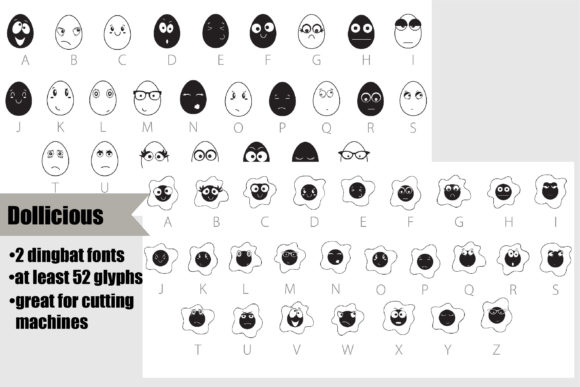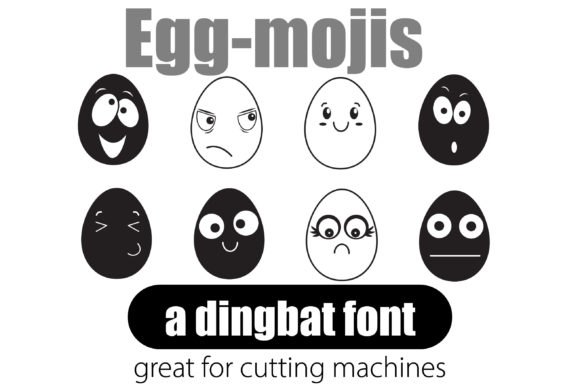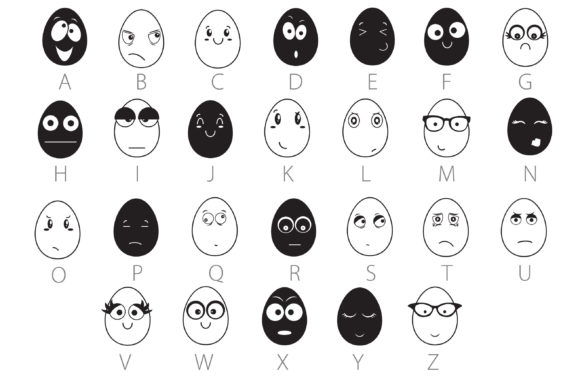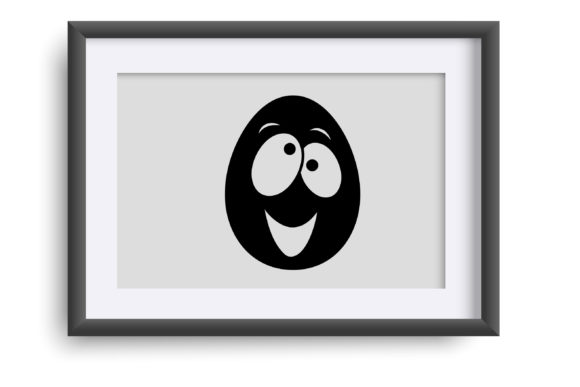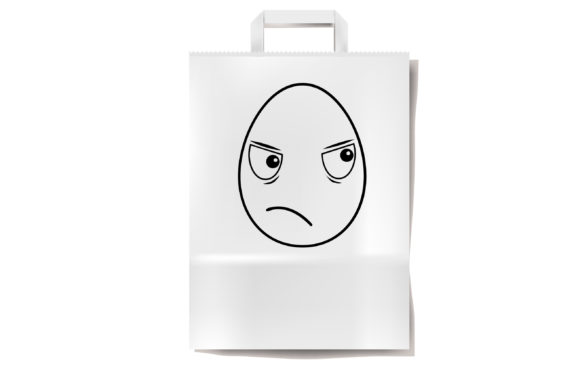
Egg Emoticon Font
The Egg Emoticon bundle includes two delightful dingbat fonts featuring egg and yolk emoticons. With multiple glyphs available in each font, they are perfect for adding a fun and expressive touch to your projects, especially those related to Easter, food, or playful designs. These fonts are designed to be compatible with vinyl and cutting machines, making it easy to create unique designs and decorations.
The first dingbat font in the bundle showcases egg emoticons in various expressions and poses. Each glyph represents a unique egg character with different facial expressions, including happy, sad, excited, and more. These emoticons can be used individually or combined to create playful designs for Easter cards, social media graphics, stickers, and other creative projects. They will add a whimsical and lighthearted touch to your designs.
The second dingbat font in the bundle is focused on the theme of yolk emoticons. It features glyphs representing yolks with different emotions and actions, such as laughing, crying, winking, and more. These expressive yolk emoticons can be used to convey a range of emotions and add a touch of humor to your designs. They are perfect for creating unique Easter-themed designs, food-related graphics, or simply adding a playful element to your projects.
Both fonts in the Egg Emoticon bundle are optimized for use with vinyl and cutting machines, allowing for precise and easy cutting of the emoticon designs. This makes them ideal for creating decorations, stickers, iron-on transfers, and other personalized items related to eggs and emoticons. Whether you’re designing for Easter events, food-related projects, or simply want to add a touch of fun to your crafts, these fonts offer a wide range of possibilities.
Feel free to mix and match the glyphs from each font to create unique combinations and compositions. Experiment with different colors, sizes, and layering techniques to bring your designs to life. With their versatility and compatibility with vinyl and cutting machines, these fonts allow you to unleash your creativity and create personalized and expressive designs.
In summary, the Egg Emoticon bundle offers two dingbat fonts featuring egg and yolk emoticons. With their multiple glyphs and compatibility with vinyl and cutting machines, these fonts are perfect for creating playful and expressive designs, decorations, and personalized items. Let your creativity shine and bring a touch of fun and emotion to your next project with the Egg Emoticon bundle!